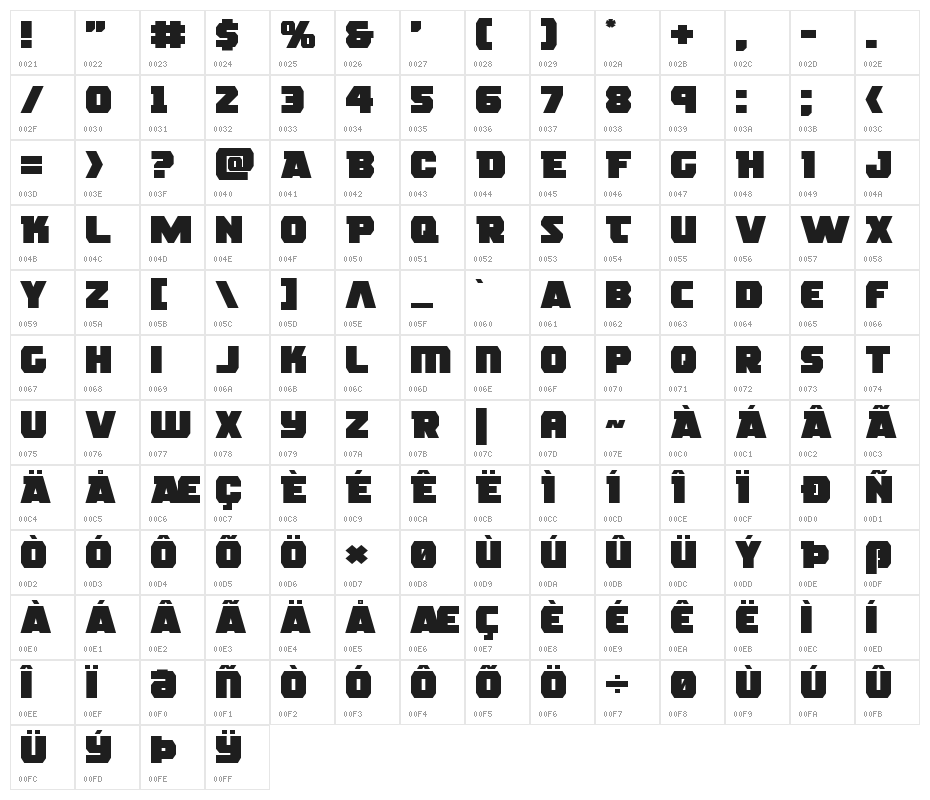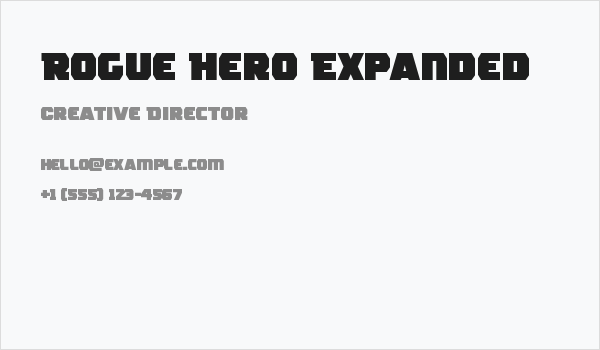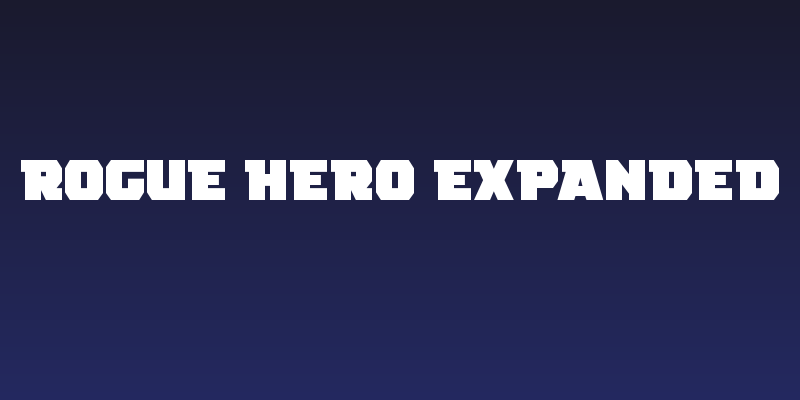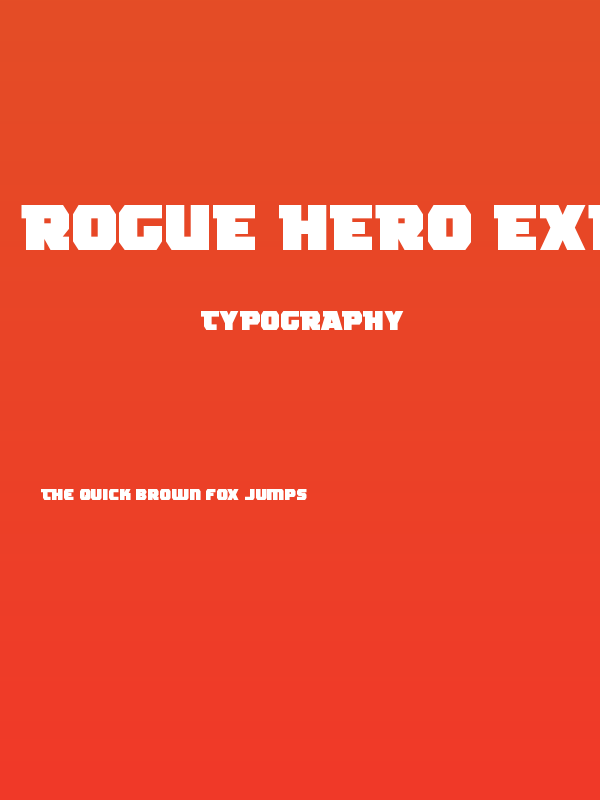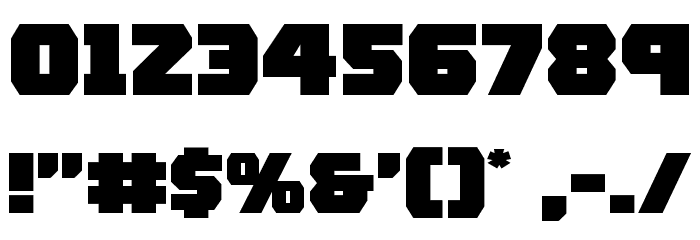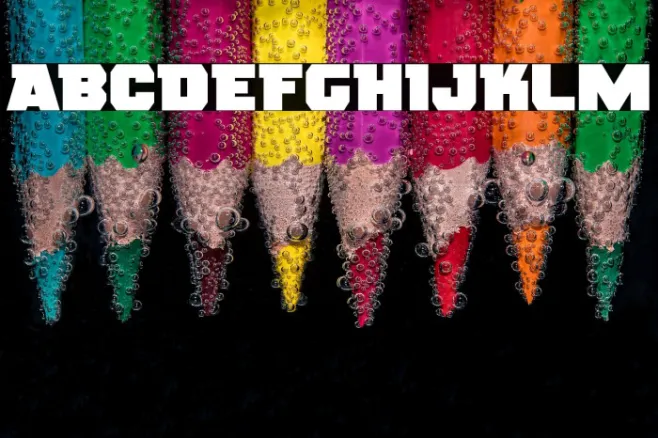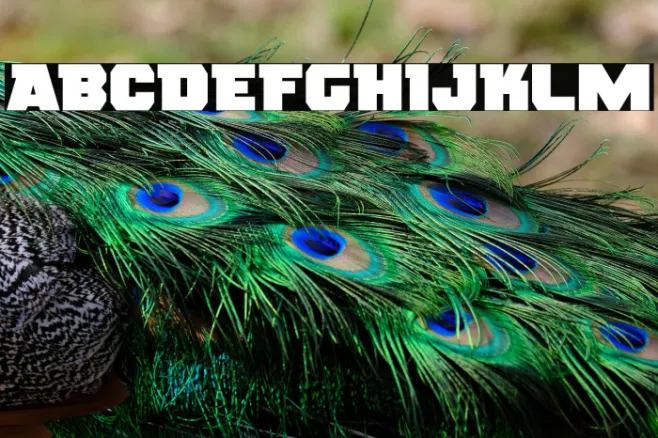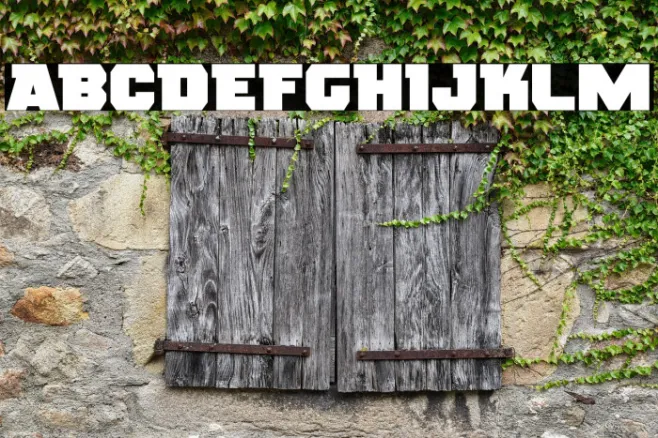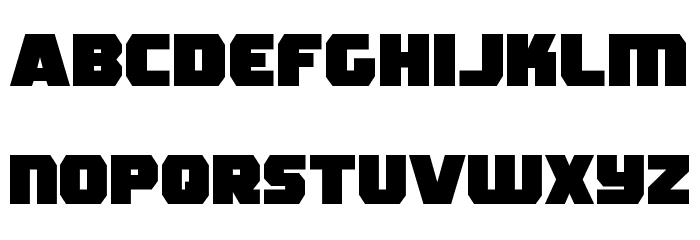
Rogue Hero Expanded Font
Rogue Hero Expanded Description
This font features a bold and striking design with a strong geometric influence. The characters are blocky and angular, giving them a powerful and commanding presence. The uppercase and lowercase letters maintain a consistent style, with sharp edges and a uniform thickness throughout. Numbers and special characters follow the same bold aesthetic, ensuring a cohesive look across all text. The font's expanded width adds to its imposing appearance, making it ideal for attention-grabbing headlines and designs that require a strong visual impact.
| Proposed Projects | Ideal for posters, logos, video game graphics, and any project requiring a bold, impactful typeface. |